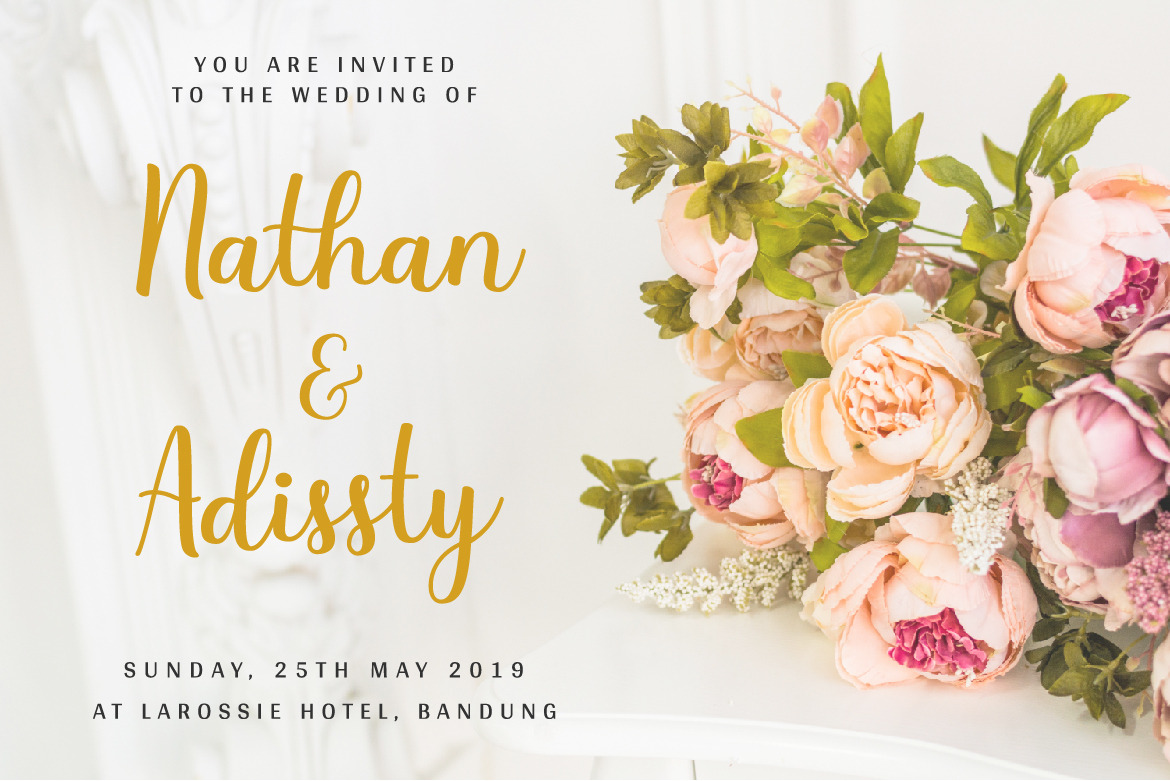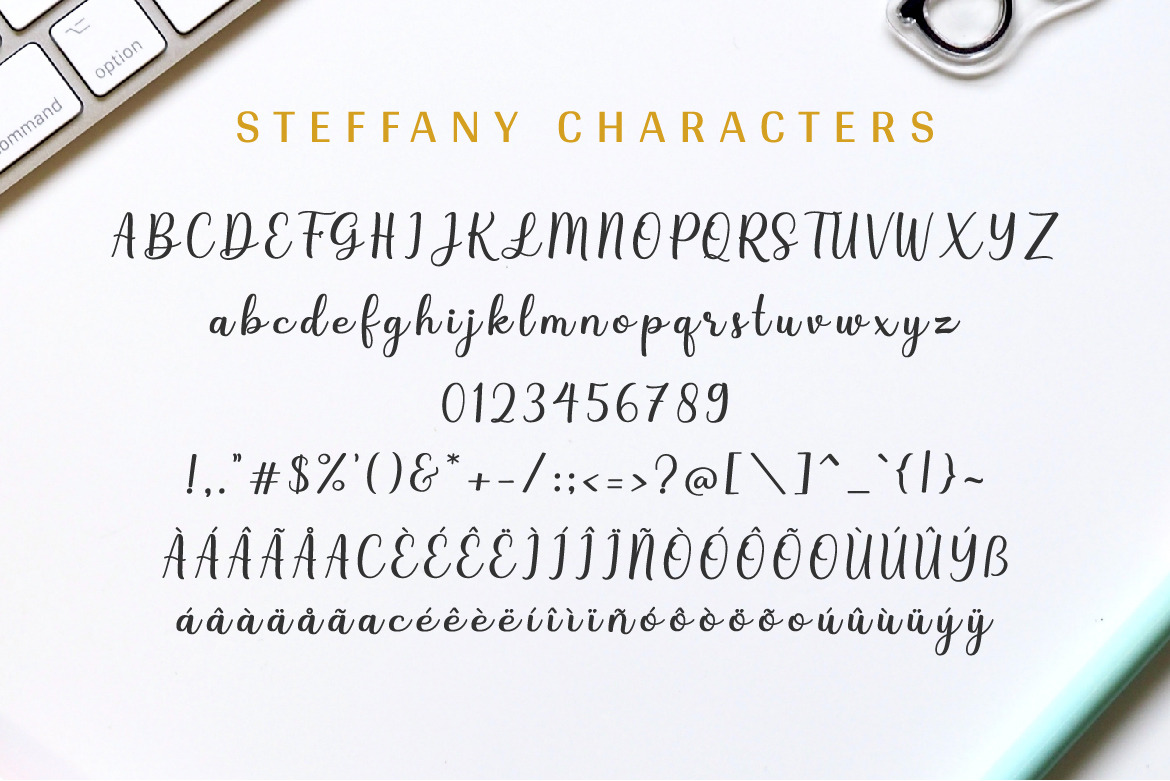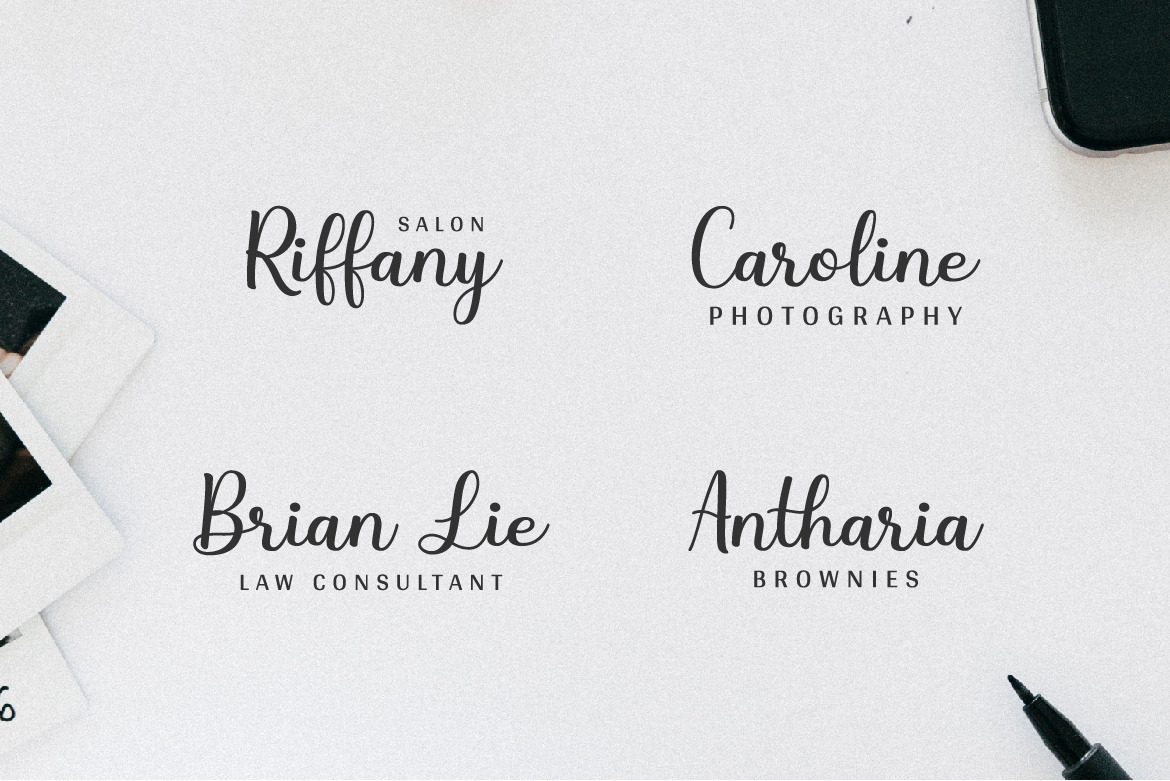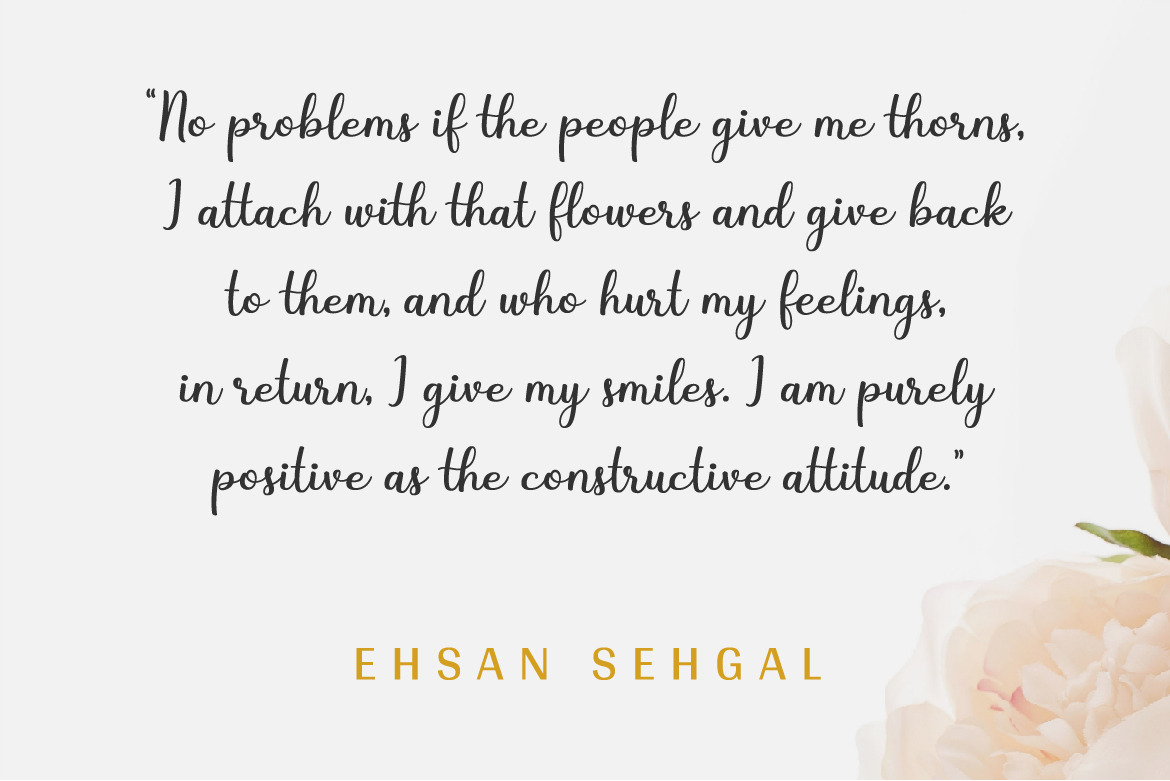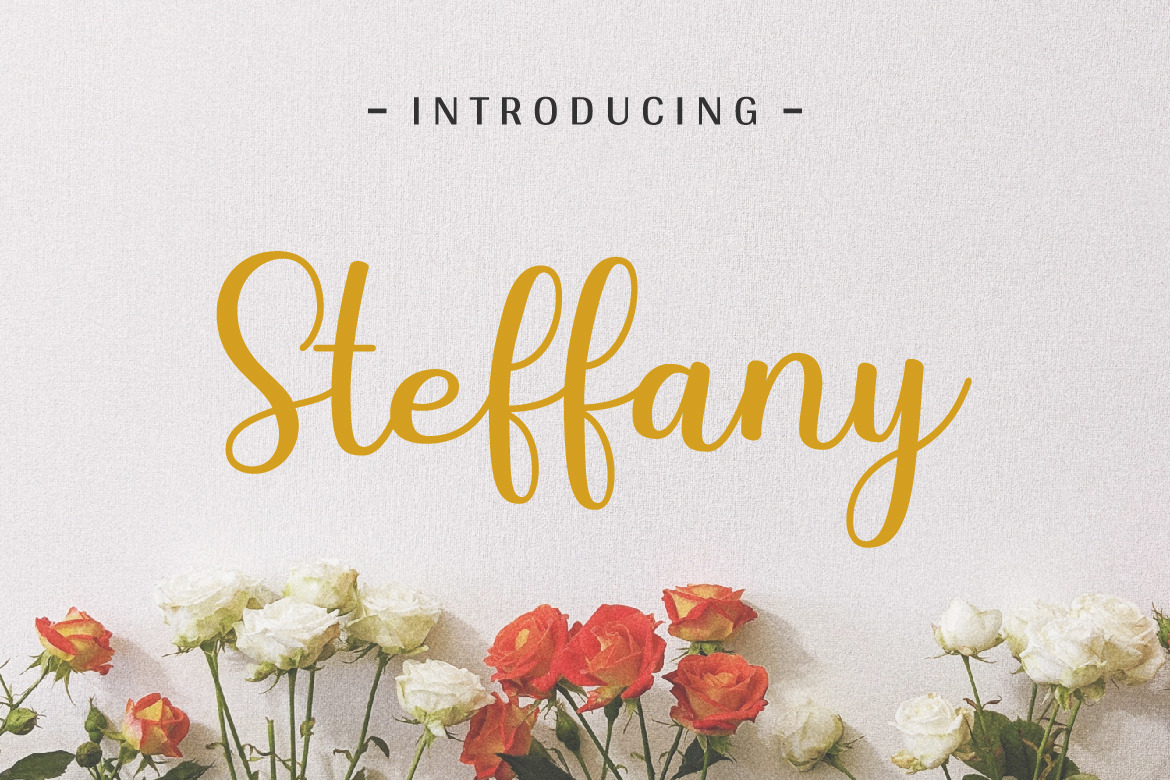
Steffany - Handwriting Font by Deemak Daksina | Creative Market
Steffany is a beautiful handwriting font that works great in small and big size. This font is best used for logo & branding, wedding invitation, product packaging, signature, diy, decoration, label, photography, and everything that needs a creative touch Features : - OTF, TTF - Ligature - Multilingual Support - Works on Windows and Mac I hope you like our font, if you have any questions feel free to reach out ! Thanks, Deemak Daksina | Steffany - Handwriting Font | Deemak Daksina